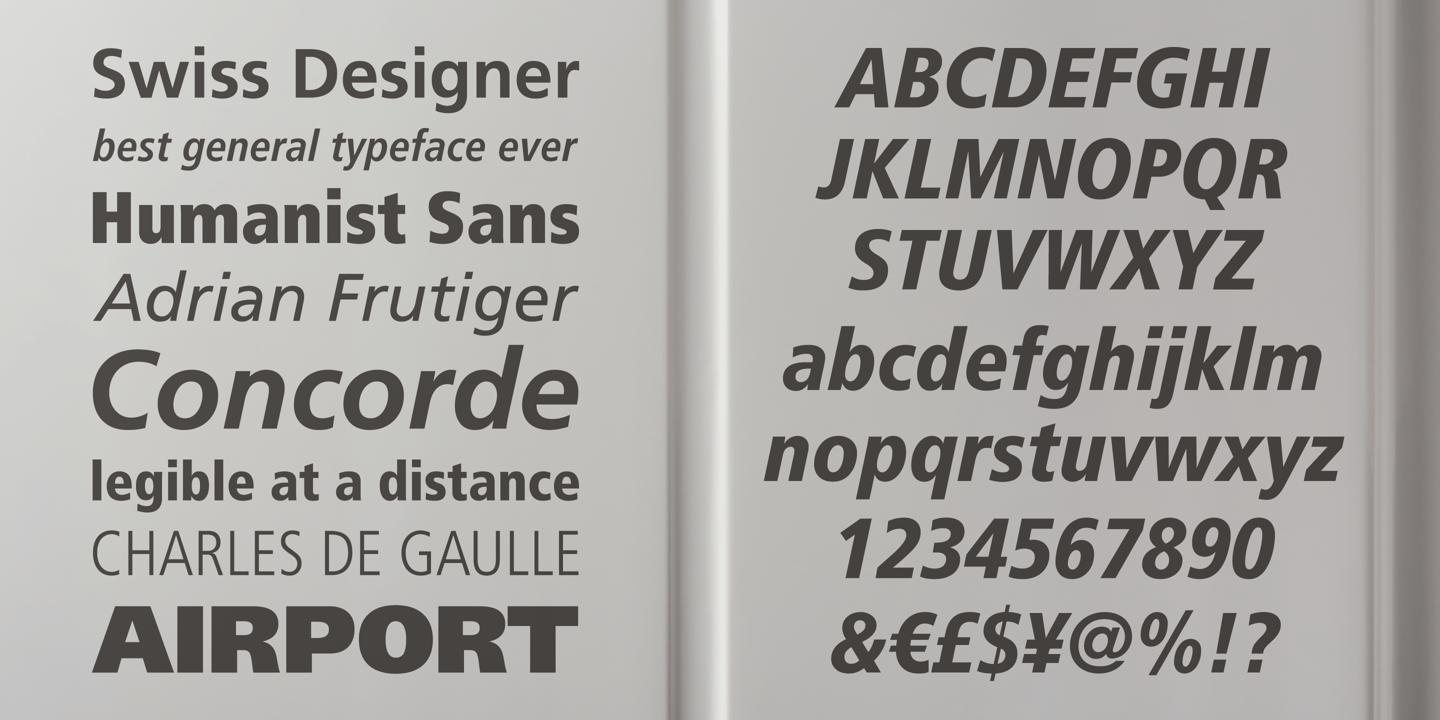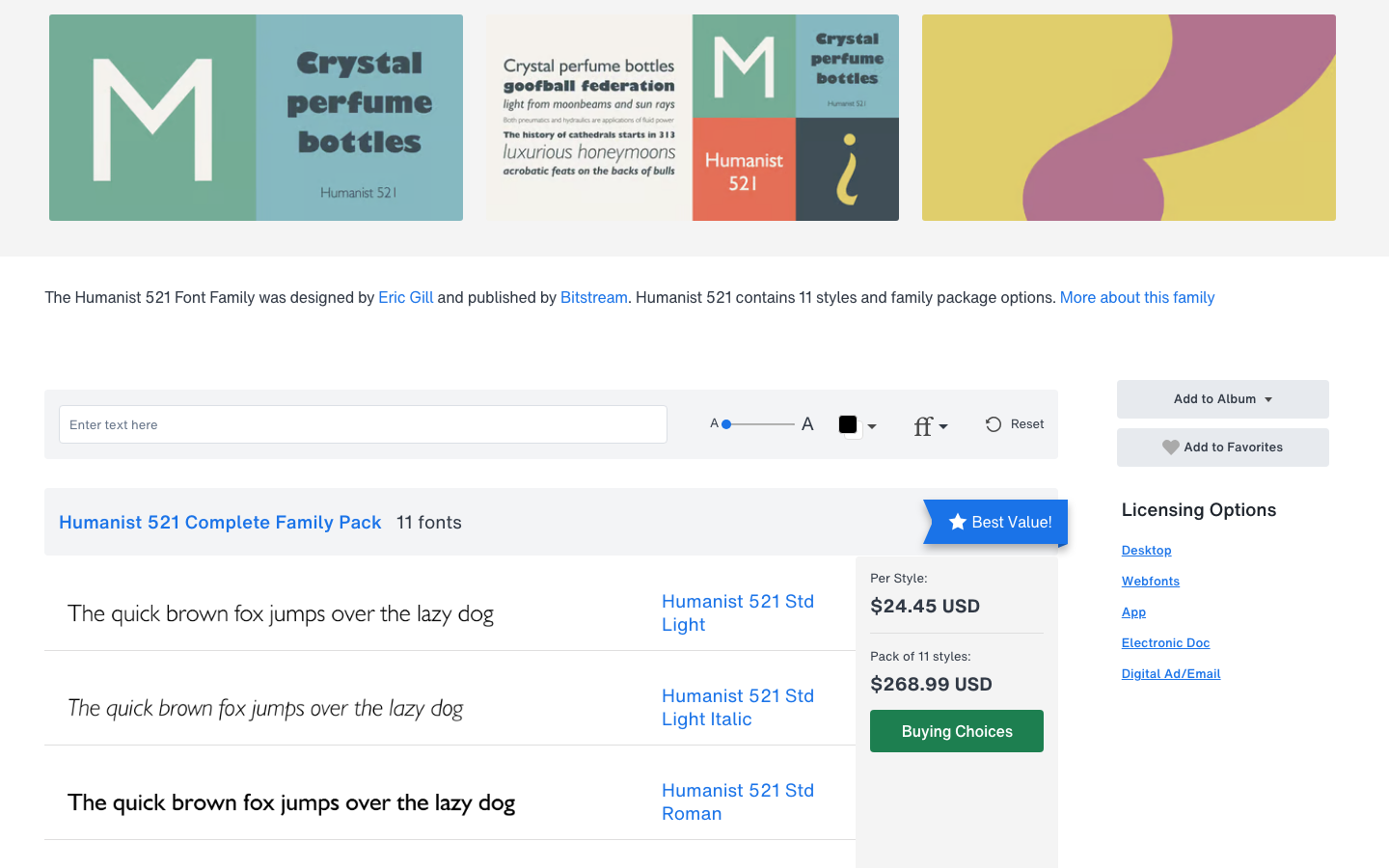
Frutiger vs Humanist 521
Frutiger and Humanist 521 are both sans-serif typefaces sharing a humanist foundation. Compare which suits your Signage project.
Design overlap:100%
Recommended: Frutiger
- Suited for Wayfinding and Healthcare
- From linotype
Consider: Humanist 521
- Suited for Editorial
- From bitstream